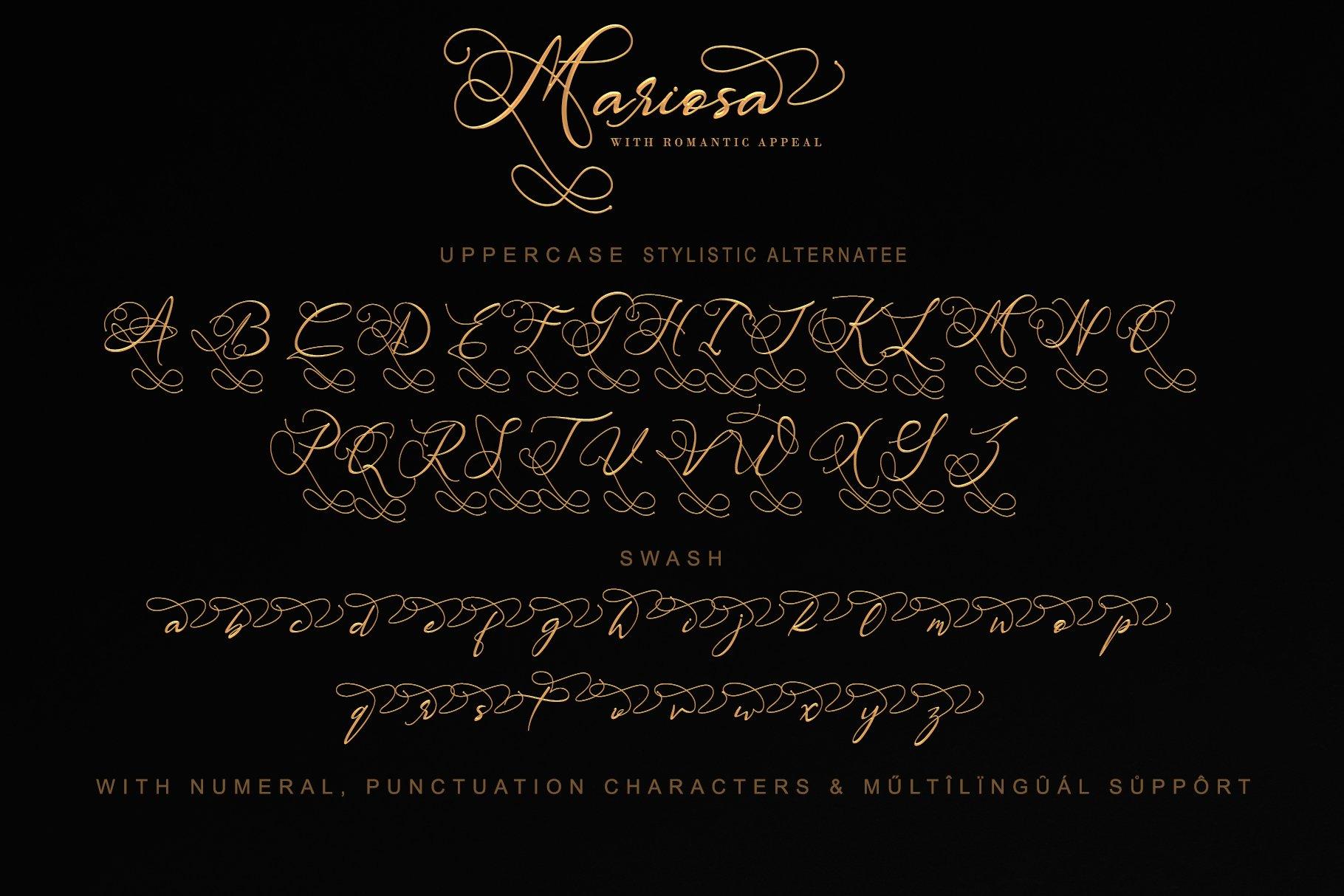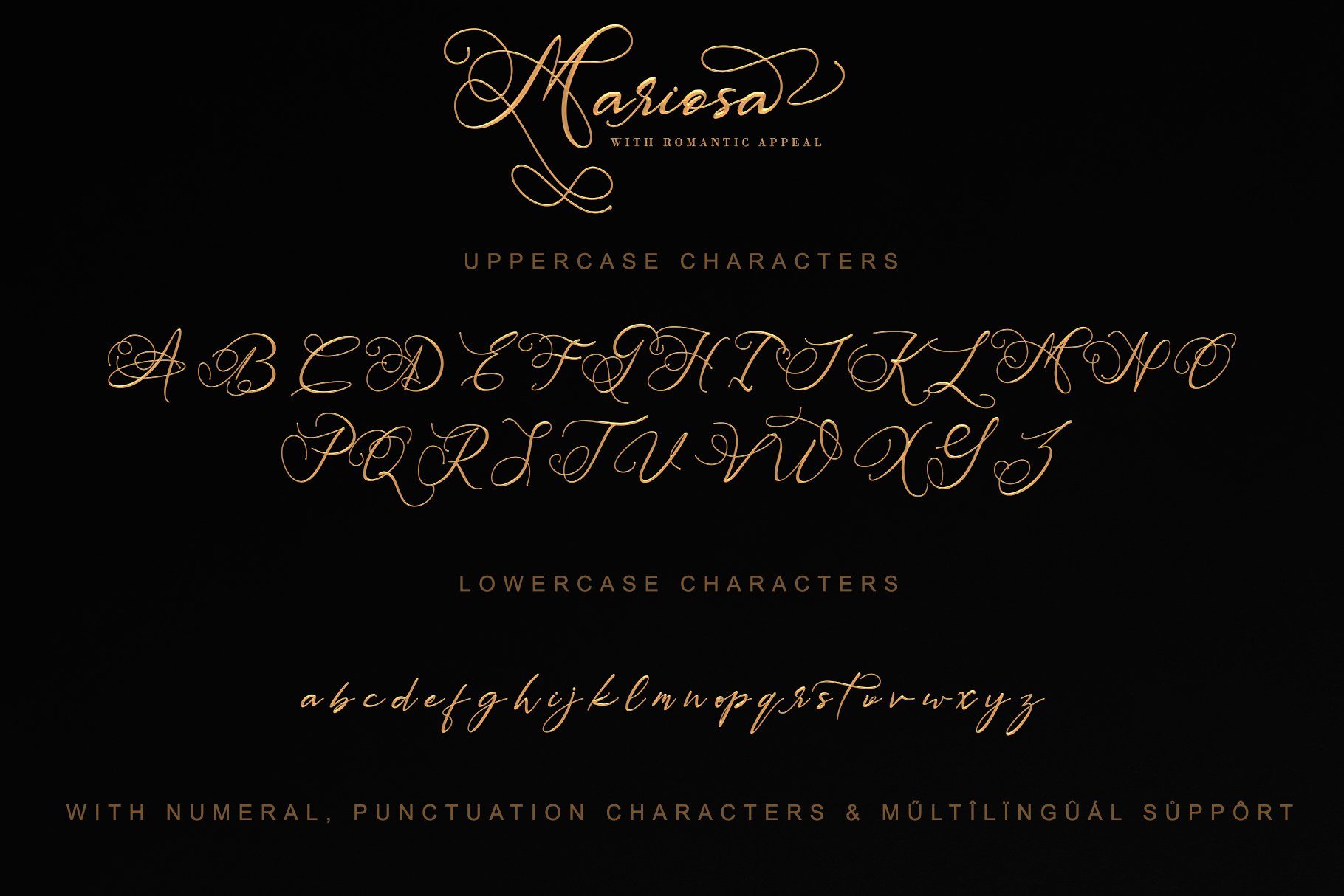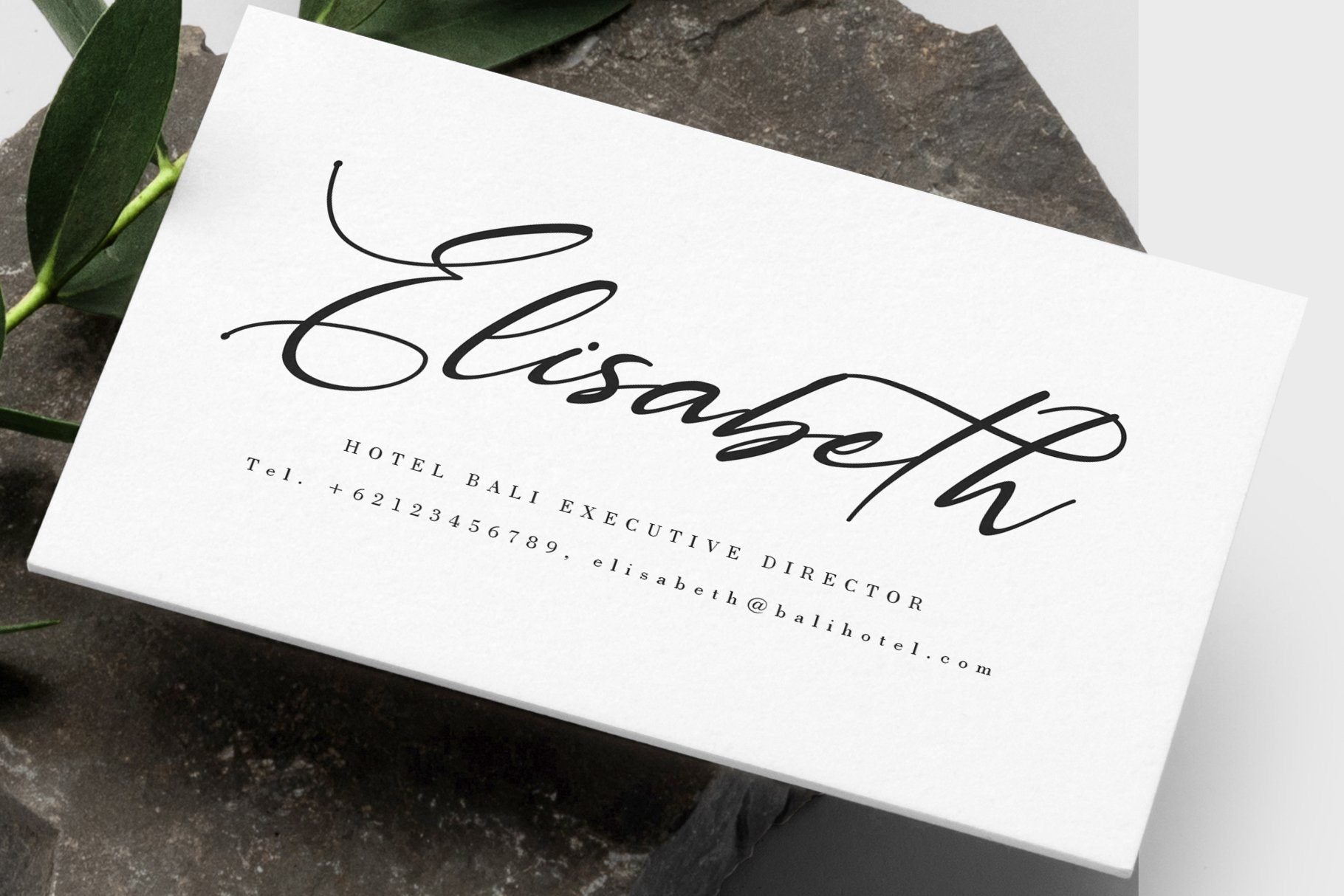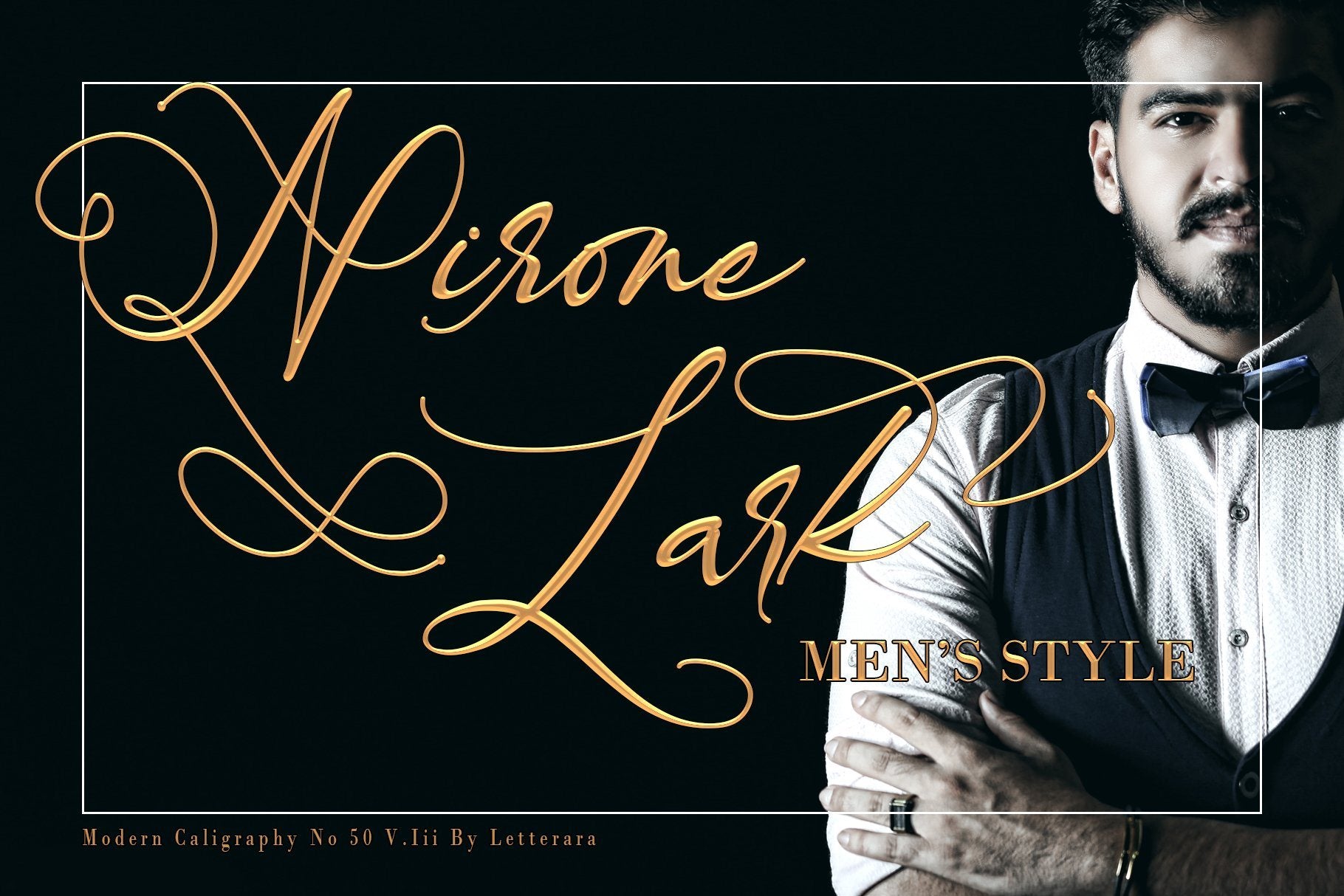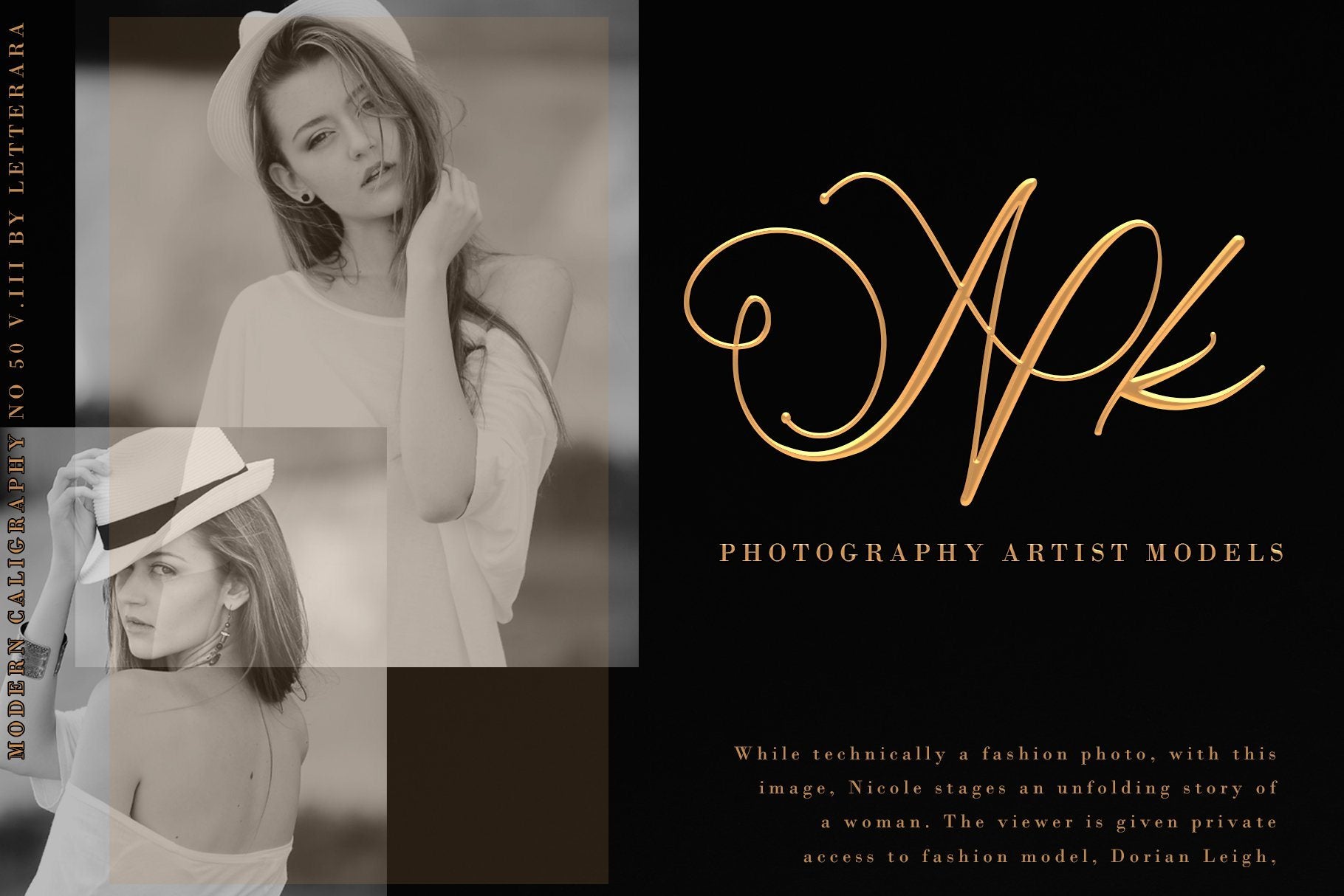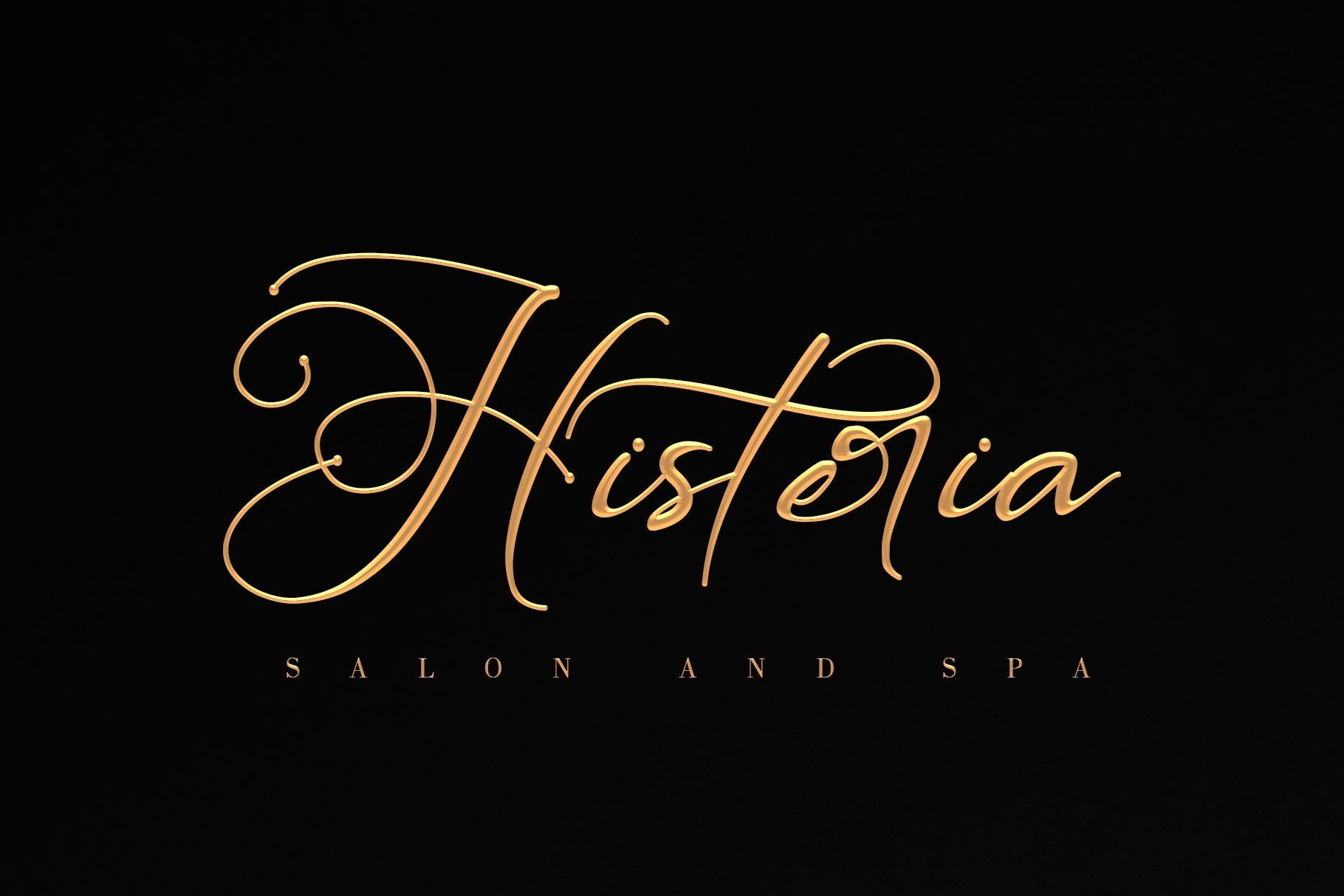
About MARIOSA
Mariosa is an elegant font with a romantic appeal; this font is for those who are in need of an elegant and appropriately modern calligraphy script. Get inspired by its bold swashes. Features : – Upper Case & Lowercase – Numerals – Punctuations (OpenType Standard) – Accents (Multilingual characters) – Ligatures , Alternative Style Stylistic Set and swash – Works on PC & Mac – Simple installations – Accessible in the Adobe Illustrator, Adobe Photoshop, Adobe InDesign, even works on Microsoft Word. don’t wait anymore, put it in your shopping basket 🙂 and follow me, because there will be many promos! Our other products : BEST SELLER BLACK PINK SIGNATURE ANDORA BRIGITTA HEANFFE EIFFEL IN LOVE ( FONT TRIO) BLACK PINK SUMMER HONG KONG ANGEL MALEFICENT California Street BESTOWENS FAMILY